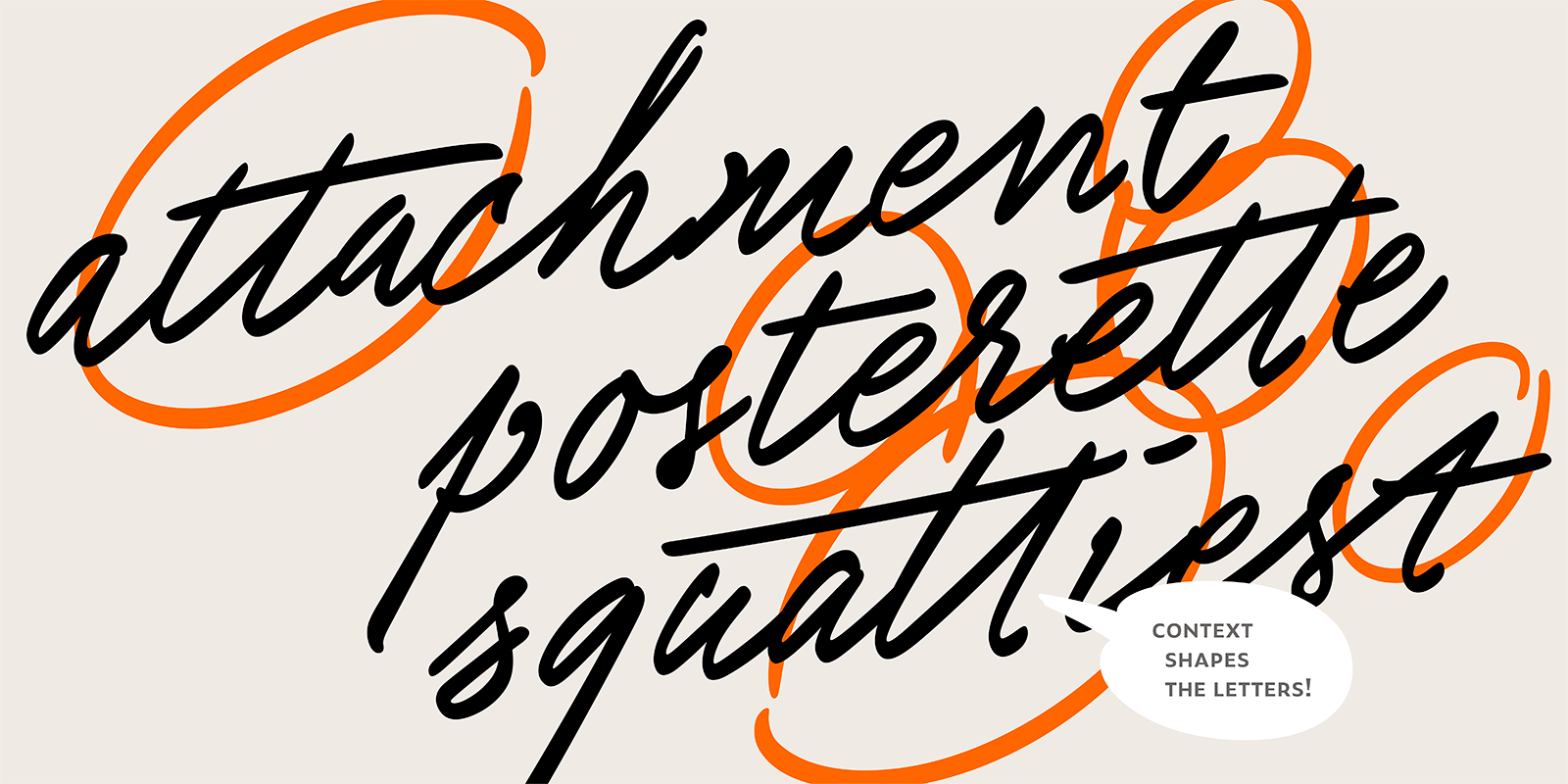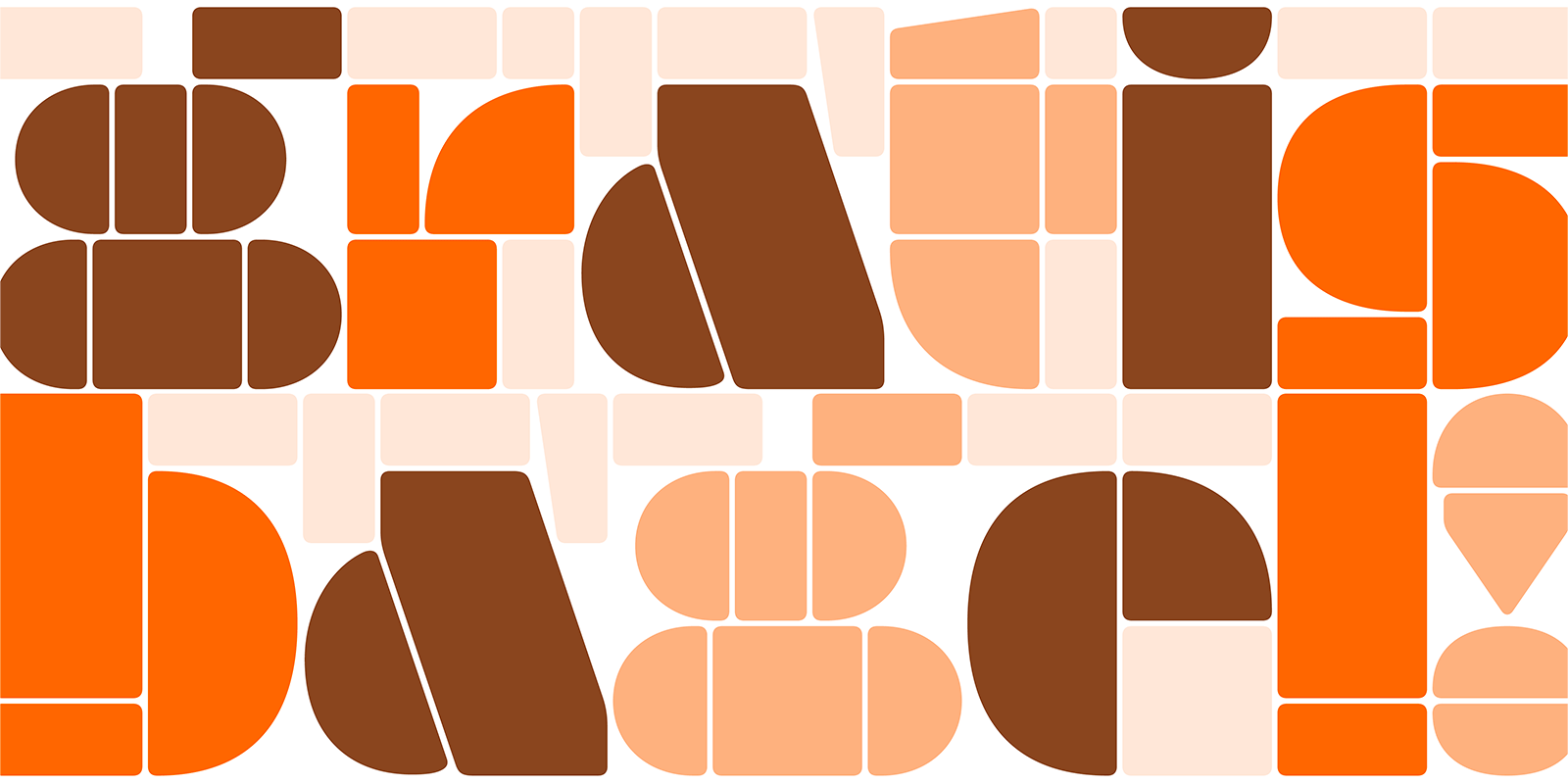
Biography Type designer Bas Jacobs is part of Underware, blending type design and progressive research projects. They introduced grammatography, publish about type, and initiate projects like Typeradio.
Regular speaker and workshop instructor. Lives in Amsterdam, the Netherlands. Interested in languages. And dialects. And slang. And scripts. And alphabets. And type. Of course. Likes to ride a bike instead of a car. As fast as possible.
Personal motto: everything is mental.
Interview
What is your favourite way to start a day? And the first thing you do at your desk?‍
Bas Jacobs I have to admit that I do have a routine to start the day with handwriting. The first thing I do when I enter the studio, before I start up the computer, is to practice my handwriting. The goal is not to become an excellent calligrapher, but to wake up my brain, to understand letterforms better, to find unexpected constructions and liberated shapes, to find freedom. Executed sizes vary from very small to very big, writing tools vary from thin broad nib pens to large markers (7 cm). Sometimes mixing colours, often purely black. The combination of different sizes and various writing tools always delivers new results, often outside my comfort zone. Sometimes this routine takes 2 minutes, sometimes 2 hours, depending if the moment is fruitful or not. Once I’m finished writing, I’ll start up my computer and continue to work there. I cooperate with Akiem (Helmling) and Sami (Kortemäki) on a daily basis already for over 20 years, we’re often online for collective discussions or just quick hook-ups.
“The first thing I do when I enter the studio, before I start up the computer, is to practice my handwriting.”
– Bas Jacobs
By the way, mostly these written sheets end up in the bin after a while, because they are not made to exist as a creation, but are merely created to practise. Other people practice yoga, I practice writing. As you can imagine, I have a collection of various writing tools, a stock of various papers in different sizes, 2 different writing desks (one flat to sit at, one angled for a standing position), so I’m very happy to go to my studio everyday. I find this physical activity very liberating and inspirational, not only for my work as a type designer.
What drives you to create new typefaces?
‍Bas Jacobs Inspiration is multilateral, and has many many sources. It could be the daily handwriting practice I just mentioned, or something completely else. For a bit more than 5 years, we’ve taken the opportunity of giving lectures as a moment to reflect on our own practice. So instead of using a lecture to present the end result of a long process or project, we’ve turned it around and took the opportunity of the lecture to reflect on our process or project. That reflection brings again new ideas, which might lead to new experiments, thoughts or ideas which then again can boost an existing project to a new level, or even become the starting point for a new process. Since our lectures are often a “just thinking loud” experiment, they keep our brains sharp. Sometimes we decide to write and publish a small booklet that belongs to the lecture. Those booklets tell the same story in a different way, and are best understood by attendees but could be interesting for anybody interested in type, letters, design, or writing.
“Since out lectures are often a just thinking loud experiment, they keep our brains sharp.”
– Bas Jacobs
We are eager to learn about the so-called Grammatography approach. Which is the origin of this theory and its relationship with letterforms or typography?
‍Bas Jacobs There have been 2 ways of writing already for quite a while. Chirography, writing by hand, exists since 5 millennia. Typography, writing with prefabricated letters, exists since 5 centuries. If you look closely, you see that with chirography the letterforms are being made while the letter is being written. This is a big difference with typography, where the letter forms are made in advance, and only copied while writing. Current technological developments have made another way, a third way, of writing possible, where the letter forms neither are made while writing, nor being made in advance and purely copied, but where their dynamic shapes react to users and/or readers. It’s a kind of writing where the letter forms themselves are dynamic, which allows for a play with letters which is different than chirography or typography, and therefore needs a new term. This is what we call grammatography. You could say that chirography is writing letters, typography is copying letters, and grammatography is playing with letters.
“Current technological developments have made another way [...] of writing possible, [...] where their dynamic shapes react to users and/or readers.”
– Bas Jacobs
Now that letters have become dynamic – often the letters are already dynamic without that readers realise this, and that’s fine – this brings up new challenges of course. Since the introduction of OpenType 1.8 in 2016, better known as the variable font format, multiple dimensions can be added to the font files directly. So it’s meanwhile perfectly possible to add the dimension of time into a font file. This might be a bit challenging to imagine maybe, but the possibilities are amazing. Since then we’ve, for example, designed a small library of writing fonts, dynamic fonts which can be used to write texts dynamically. But those fonts we designed many years ago, and we started to design and add the dynamics later on. Our most recent release, the handwriting font Scribo, was designed with the dynamics already in the back of our mind from the beginning on. So instead of only capturing the static letter forms, we captured the entire action of how they were created, and included that action in the font file.
“Grammatography is playing with letters.”
– Bas Jacobs
Actually now that we can add multiple dimensions to a typeface – since the variable font allows this – we entered a new area of type design which is unexplored area. There are no type design tools yet to design in time, there are no applications yet which have the time dimension of fonts natively build in, and our entire typographic terminology is based on printing. As you know, printing results in static shapes, so all the terms we use are based on static usage. But we also want to define the speed of writing, for example. We introduced new terms and units for temporality at our presentation at the ATypI conference in Paris in 2023. The biggest challenge might be to get all these pretty amazing possibilities of dynamic fonts in the hands of users in an easy way. You can’t everybody expect to be able to program and build their own tools, but large software corporations can do this. However, these tend to move slow, so this is a process that requires patience. Therefore, we also made a new platform for accessible artificial writing which does not require any technical knowledge.
On this platform, Scribomat.com, anybody can write their own text, choose their font style, and then download the written text. Those people who are able to add a static image to a website, can now also add written text to their website. This is the easiest way we can imagine at the moment. The new platform is in development, we hope to include fonts from other designers as well, and add more of our own writing fonts in the future, so it’s definitely in progress. In progress, but alive.